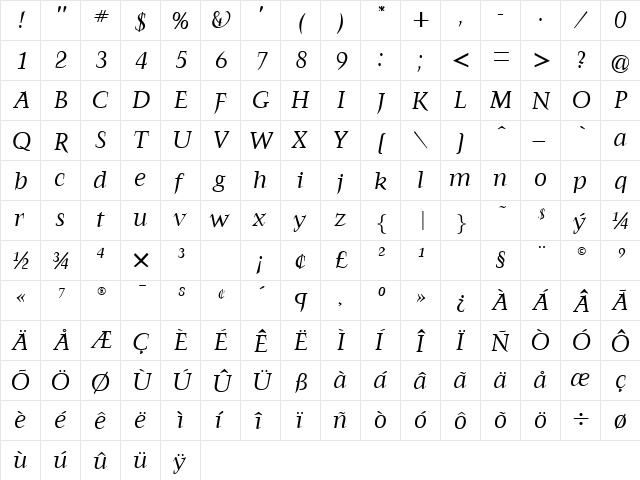
Farringdon RegularItalic
Design Context for Farringdon Typeface
Farringdon is a composed and adaptable typeface that performs quietly and consistently across a wide range of design contexts. The dynamic lean of this cut emphasises speed and emphasis in any layout.
Pro Tip: Try Farringdon for annotation and caption copy alongside an upright companion — the contrast in angle creates a dynamic but ordered typographic system.